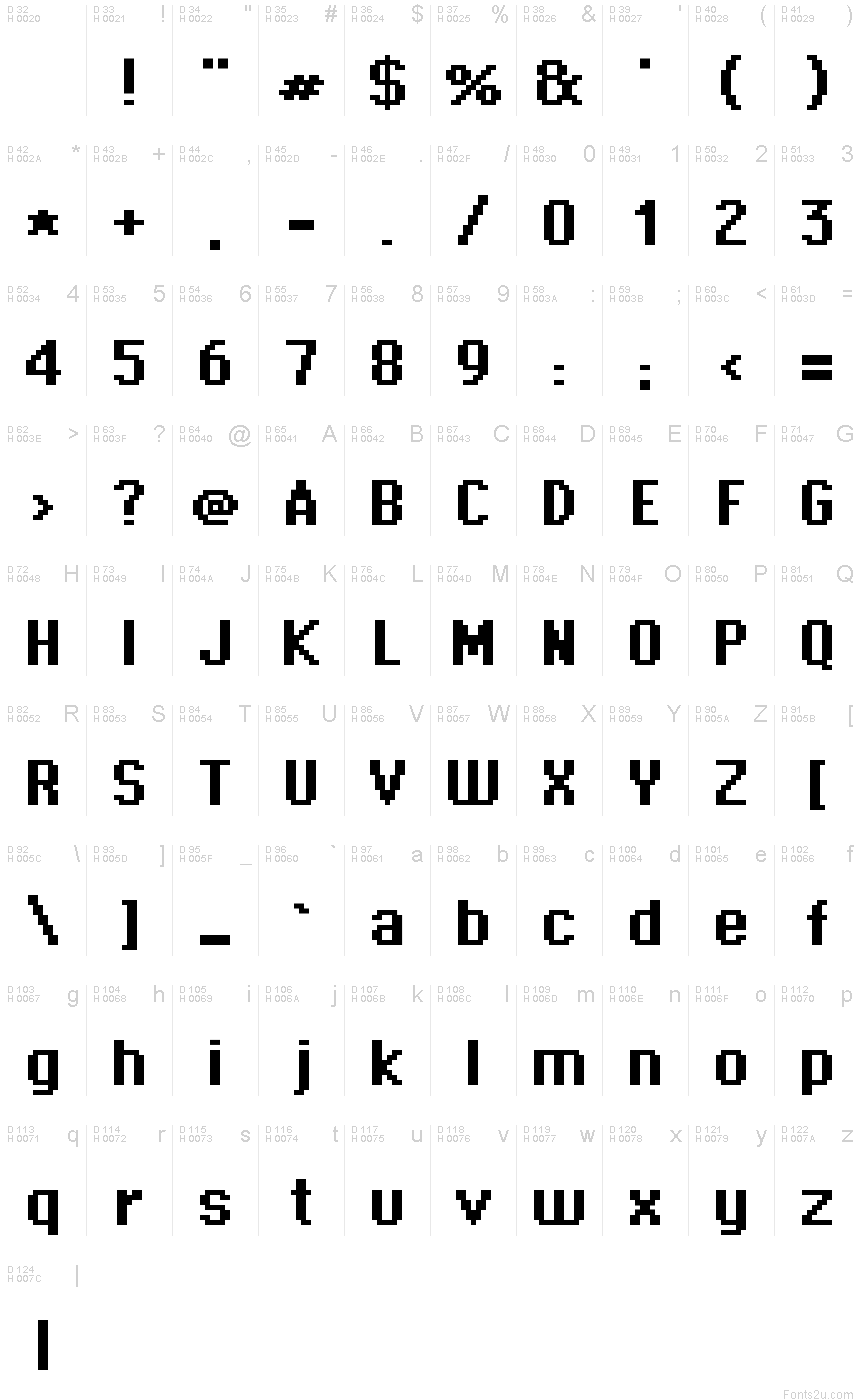
Supertext 03 Bold
Supertext 03 Bold, a free bitmap font from Superlooper, has the blunt, blocky snap of early screen graphics. Its letters are built from chunky square steps and tight rectangular shapes, giving the font a compact, game-era rhythm that feels more coded than drawn.
That makes it a natural fit for arcade-inspired posters, zines, interface mockups, album art, and short website headers where a free font with real pixel texture feels right. It also works well for title cards, label systems, and brief logo-style words, because the dense little blocks keep every line looking firm and deliberate.